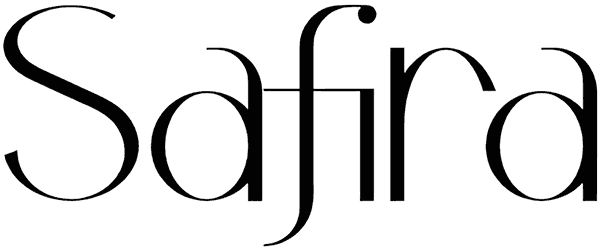
Safira Font
Would you like to keep the classic sense of your novel design while it has a unique style? This serif font with its original rounded form letters in two versions would be exactly what you need. There is an A-Z cover of characters that enables Safira to be matched with any intended projects, like books, posters, logos, and so forth.